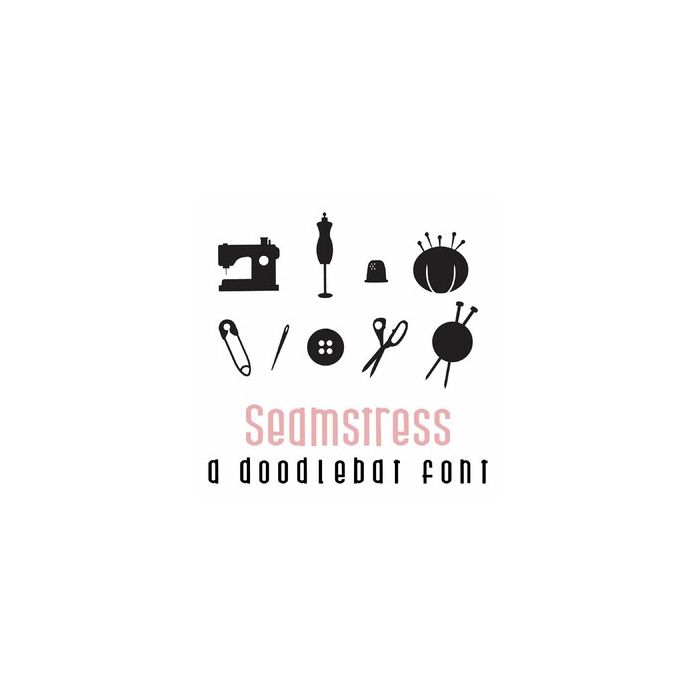
This fun doodlebat font features 26 sewing and seamstress-themed images. Perfect for cards, crafts, gifts, decor, scrap book pages, planner stickers and more!